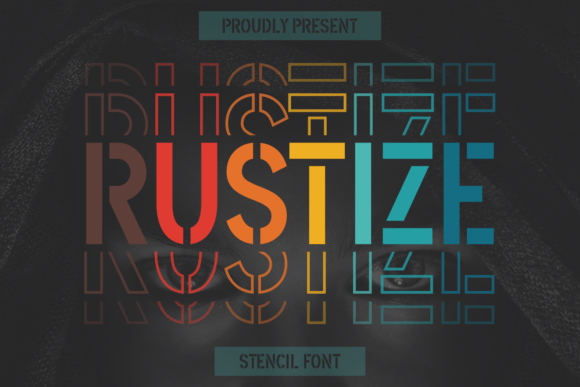
Introducing Rustize Font - the perfect solution for anyone looking for a touch of vintage flair in their design projects. With its unique and retro display, Rustize is the ultimate choice for those seeking to add a sense of nostalgia and charm to their work.
Designed by Kelik from 7NTypes, Rustize boasts bold and distinctive letterforms that will take you back in time. This sans serif font is a must-have for any branding, packaging, or editorial design project.
Whether you're looking to create a stunning label for your latest product, or you want to elevate your Cricut designs to the next level, Rustize is the best font for labels Cricut. Its eye-catching and emotional appeal will make your project stand out from the crowd.
If you're a fan of retro and vintage styles, Rustize is the perfect choice for you. With its captivating and unique features, you can add a touch of class and elegance to your designs. Rustize is versatile and adaptable, making it suitable for a wide range of projects.